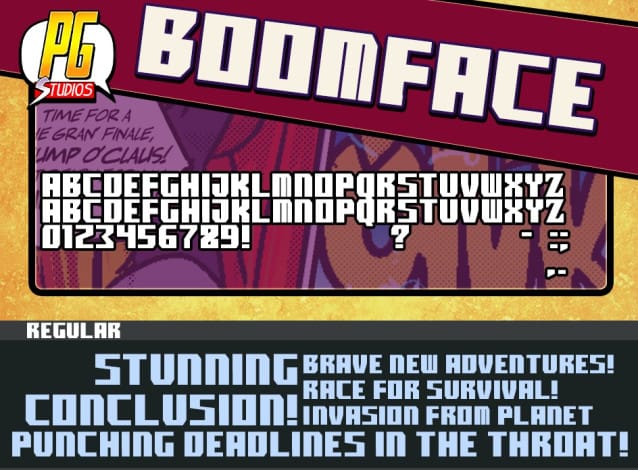
Boomface Pg Font
Boomface Pg Font, This bundle features strong, confident and powerful typefaces designed to work great with sports logos, club branding, apparel applications, labels and more.
This font was created for all forms of business and branding such as clothing, logos, skate boards and others according to your needs.